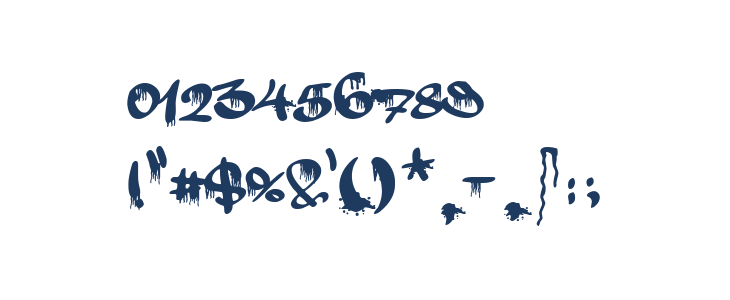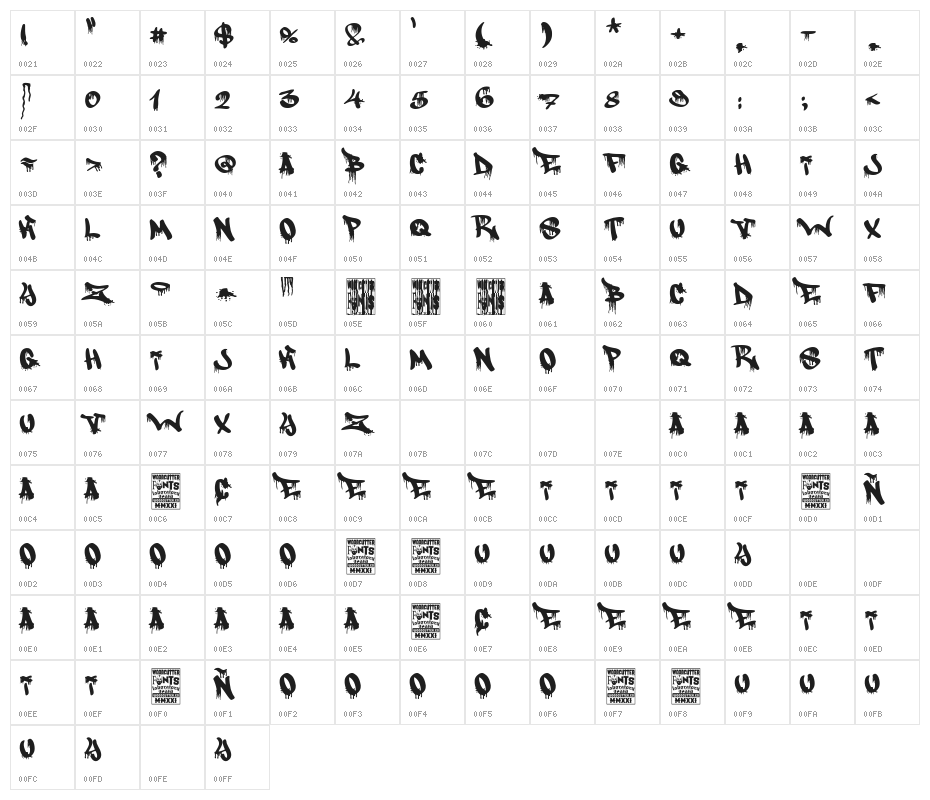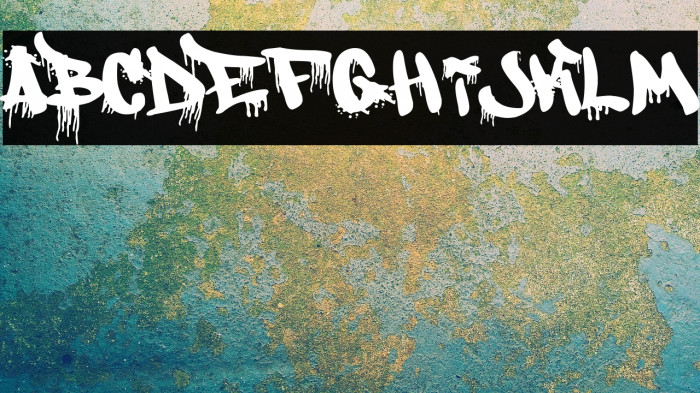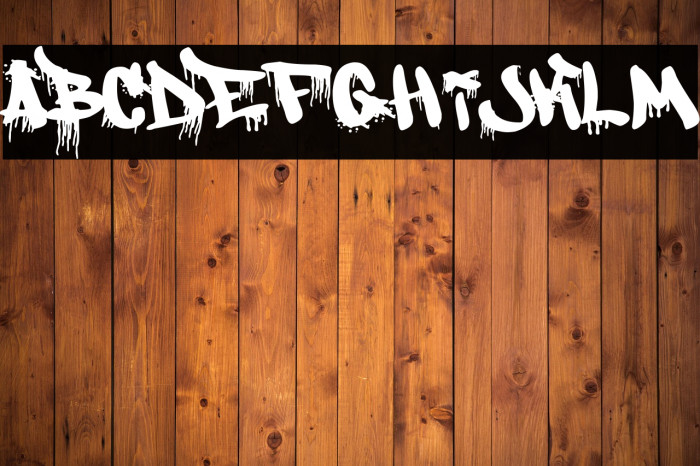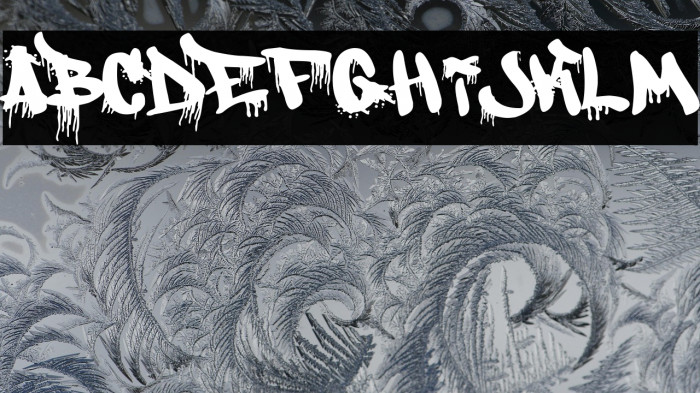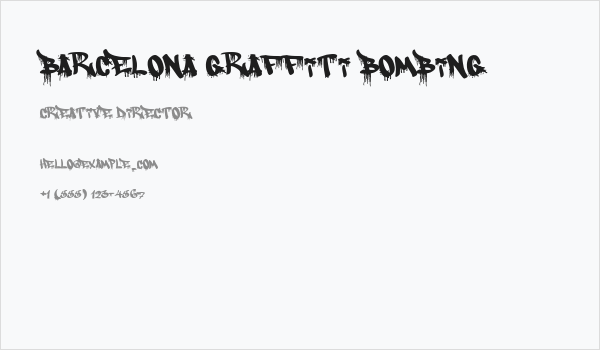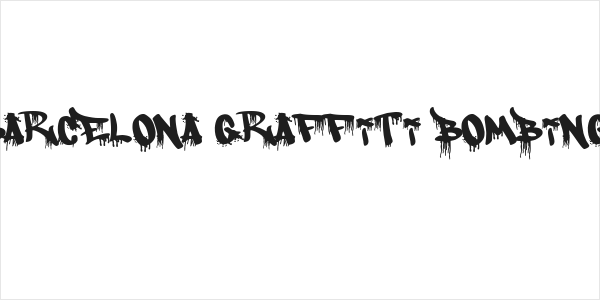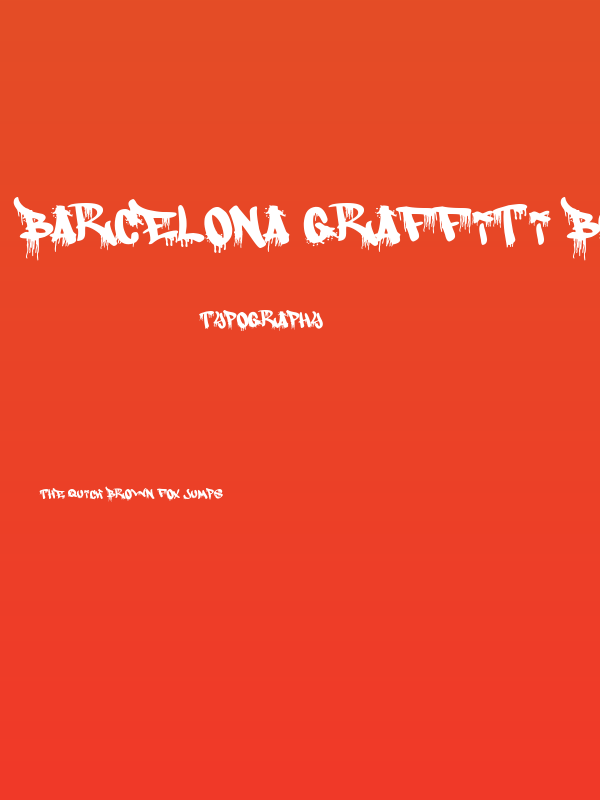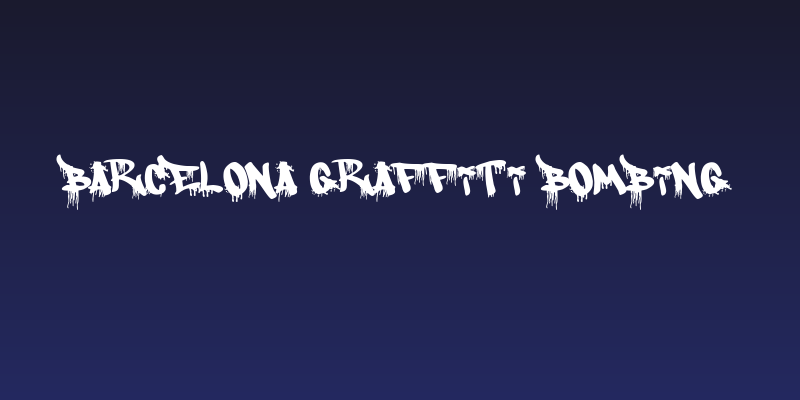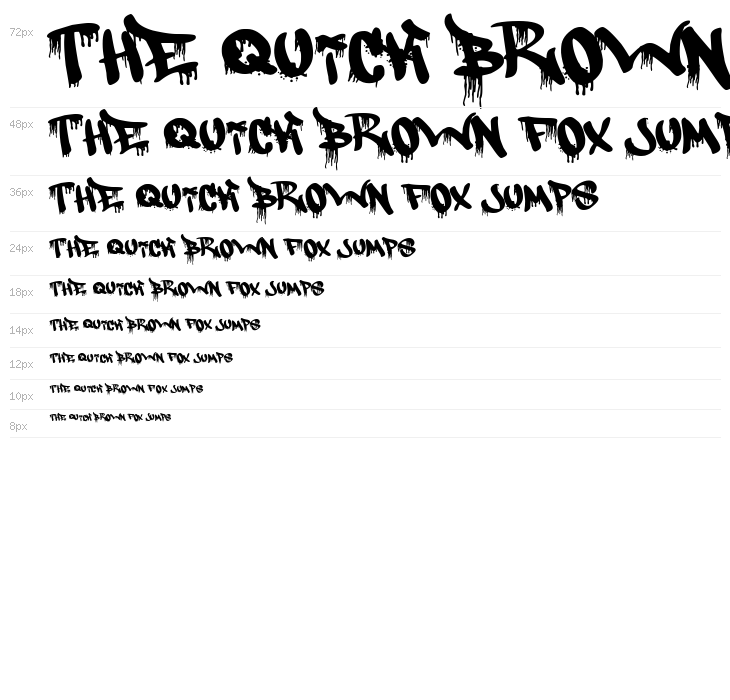
Barcelona Graffiti Bombing Font
Barcelona Graffiti Bombing Description
This font exudes a bold and rebellious spirit, reminiscent of urban graffiti art. Each character appears as if it has been spray-painted, with drips and splatters adding a dynamic and edgy feel. The letters are thick and bold, capturing the essence of street art with a raw and unrefined aesthetic. The uppercase and lowercase letters maintain a consistent style, while the numbers and special characters integrate seamlessly, enhancing the overall graffiti theme. This font is perfect for projects that aim to convey a sense of urban culture, creativity, and nonconformity.
| Overall Style | Urban, Graffiti, Edgy |
| Use Case | Logos, Posters, Album Covers |
| Proposed Projects | Ideal for street art-themed designs, music album covers, urban event posters, and edgy branding projects. |